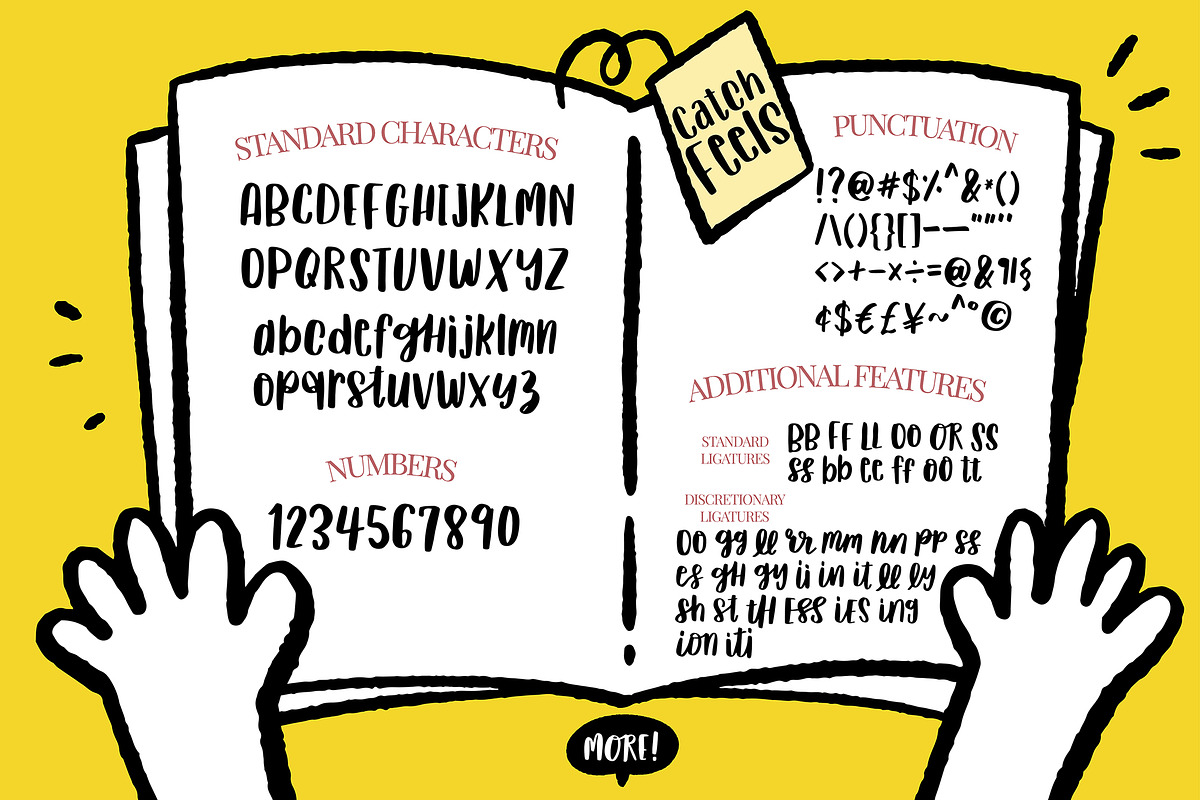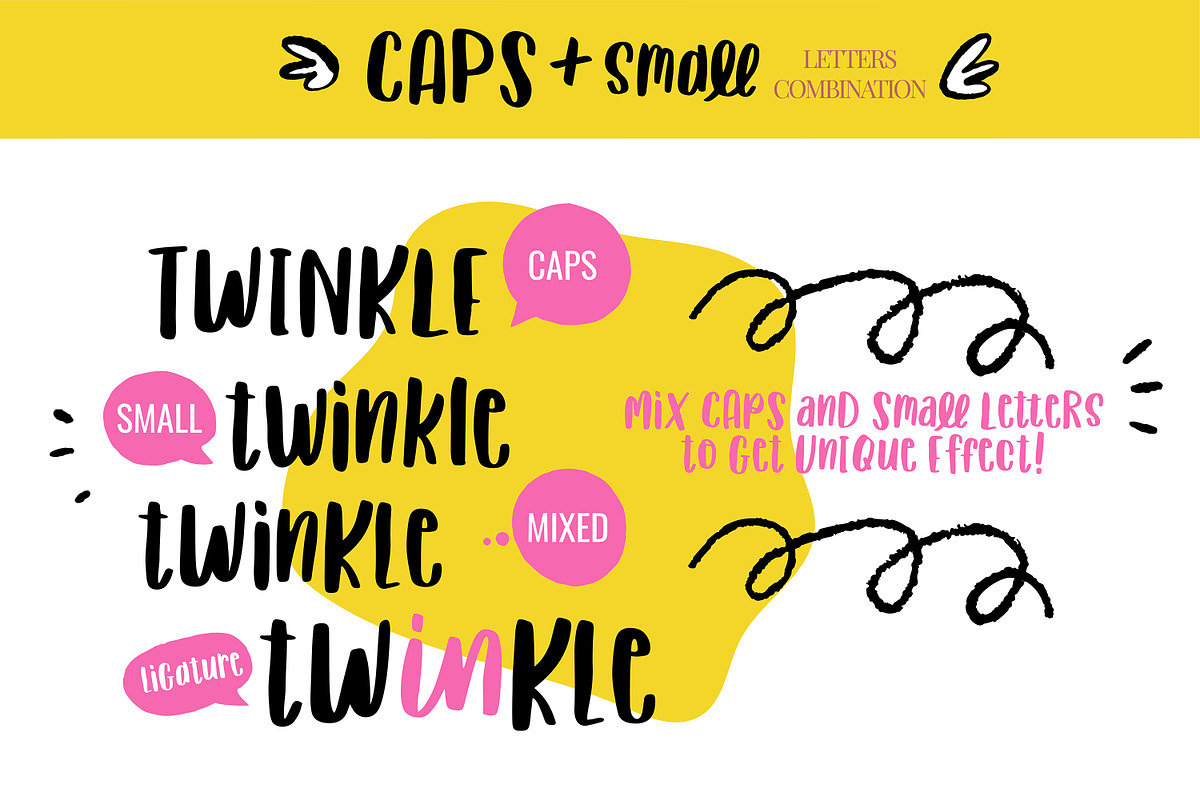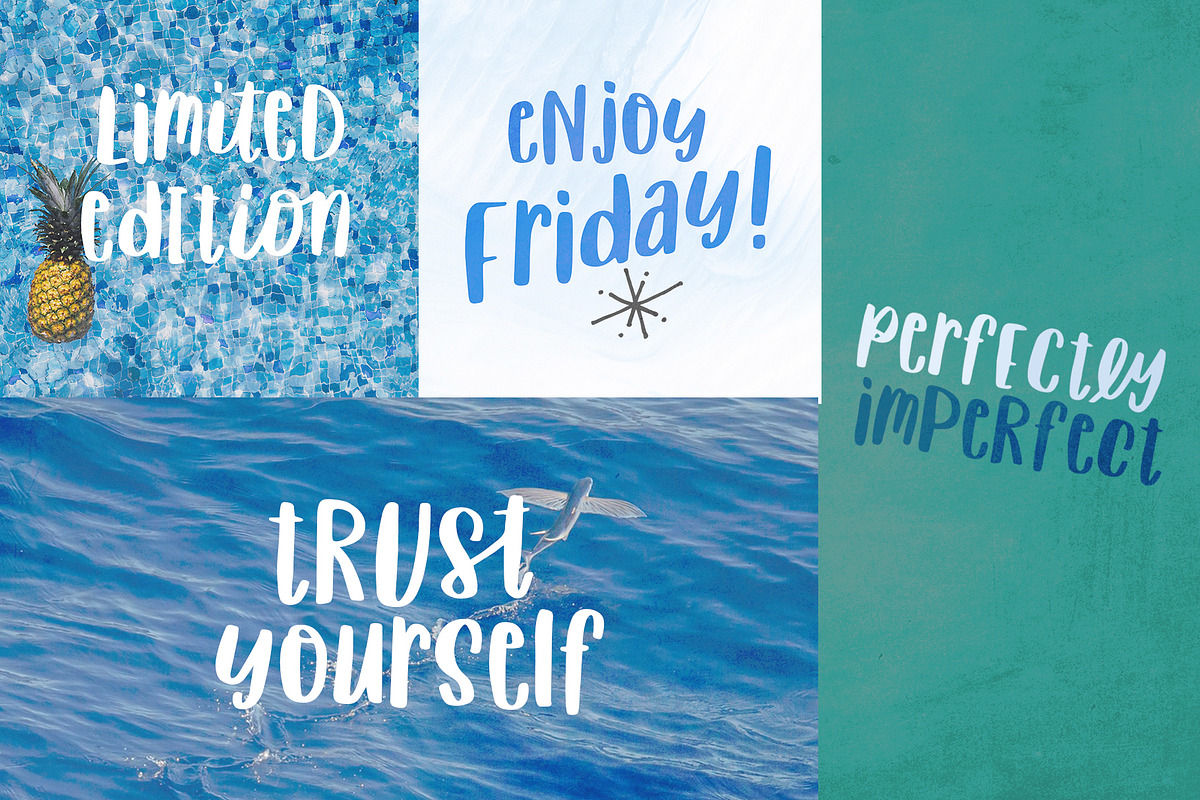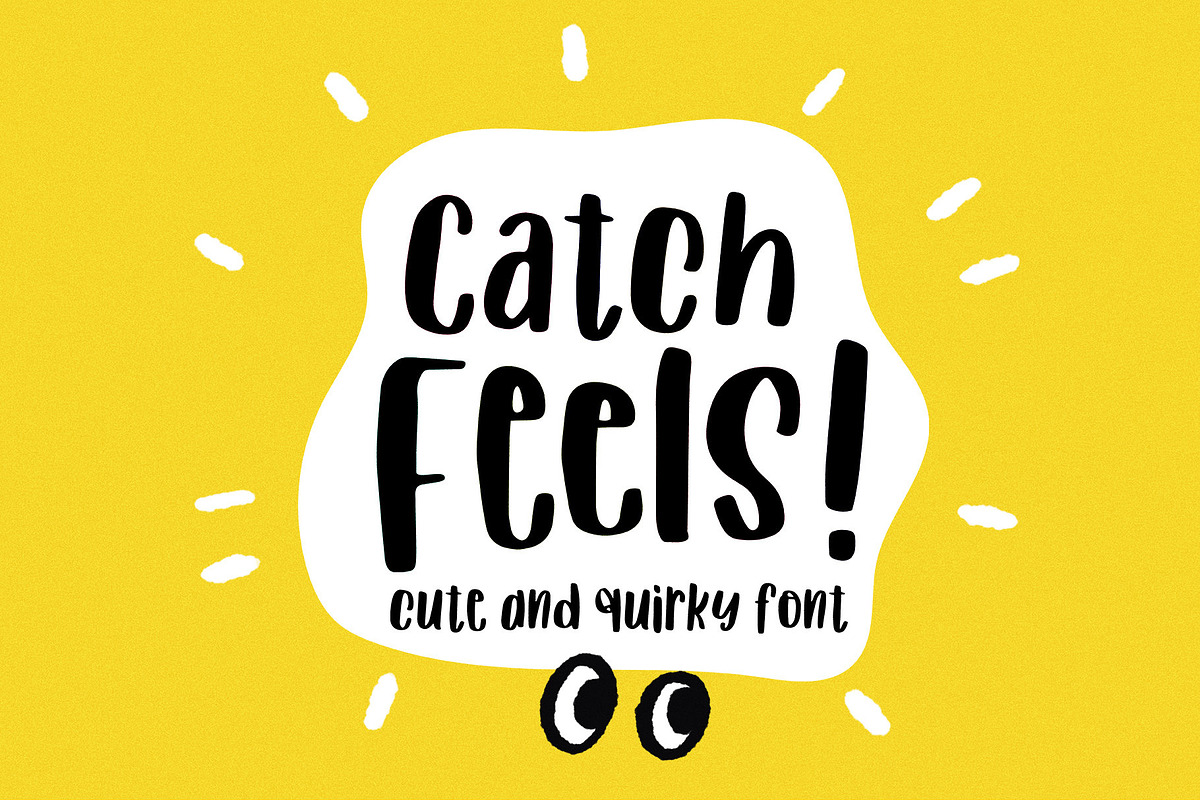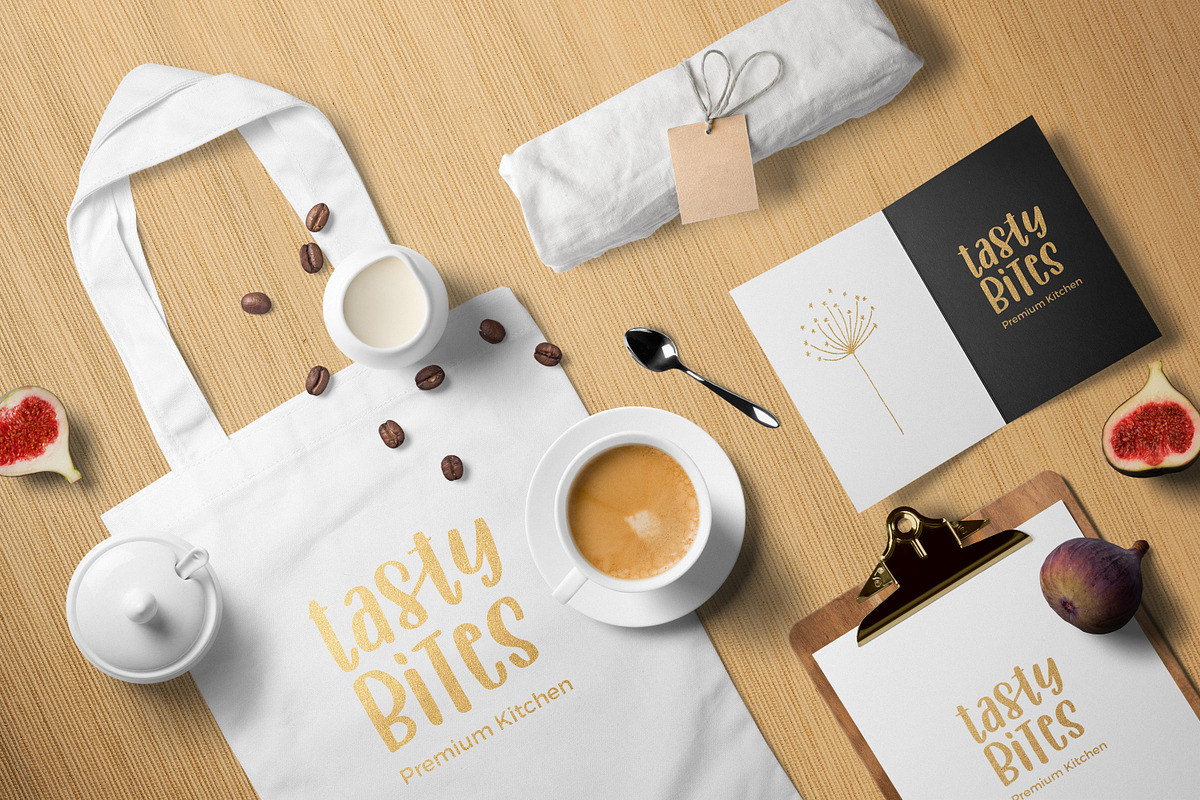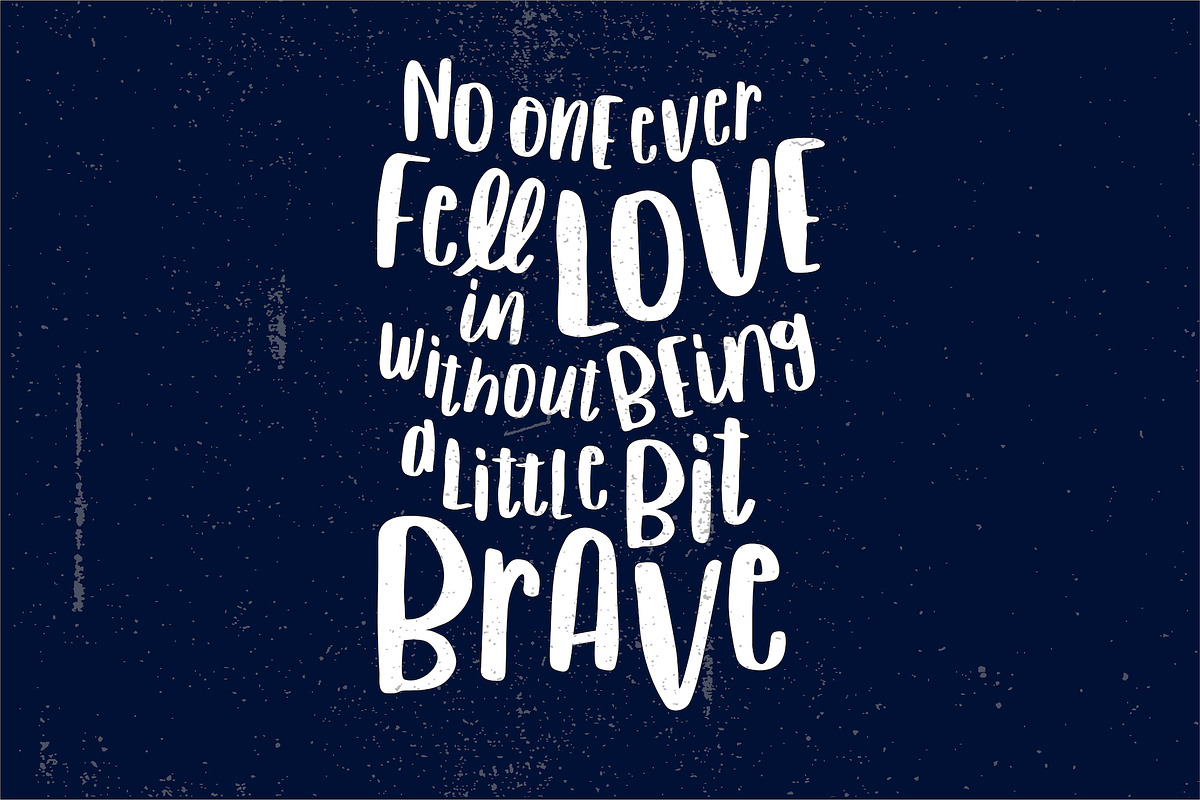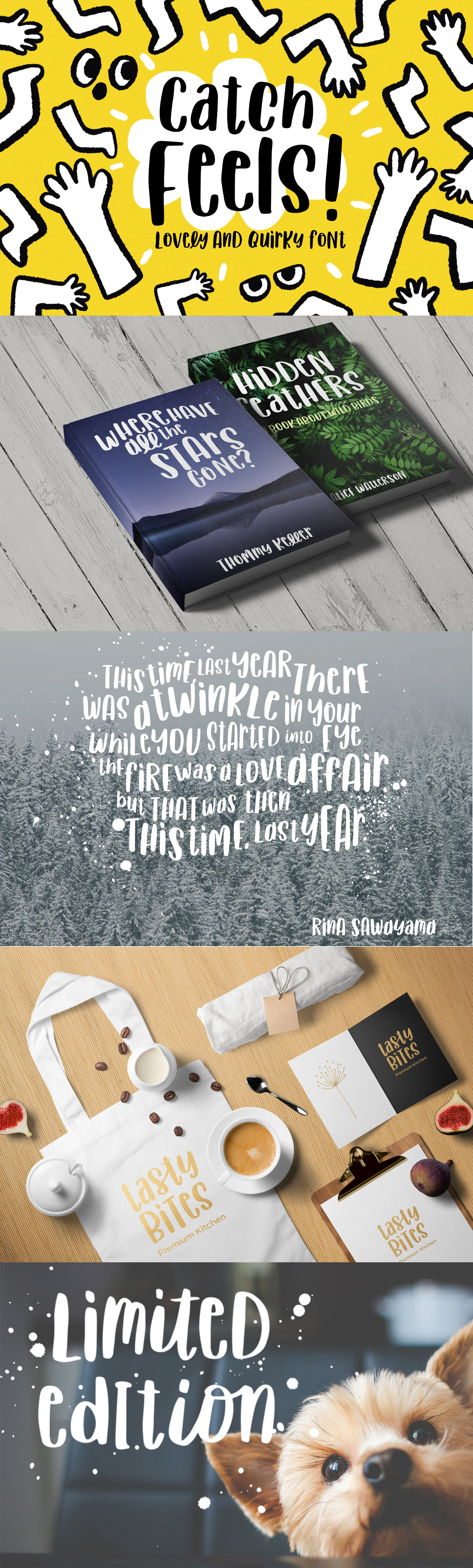
Catch Feels - Lovely and Quirky font
Catch Feels is a lovingly hand-drawn quirky font with funny ligatures. Create a special, fun & stylish typography design like logo, branding, book cover, t-shirt, album covers, and social media projects.
Try mixing uppercase and lowercase letters as you wish to create very hand drawn and fun vibes. Test some sentence with mixed letters via Creative Market font previewer below!
- Catch Feels Regular with standard and discretionary ligatures
- Numbers and punctuations
- Multilingual Support for Western European Languages (Please test your characters in the font previewer below)